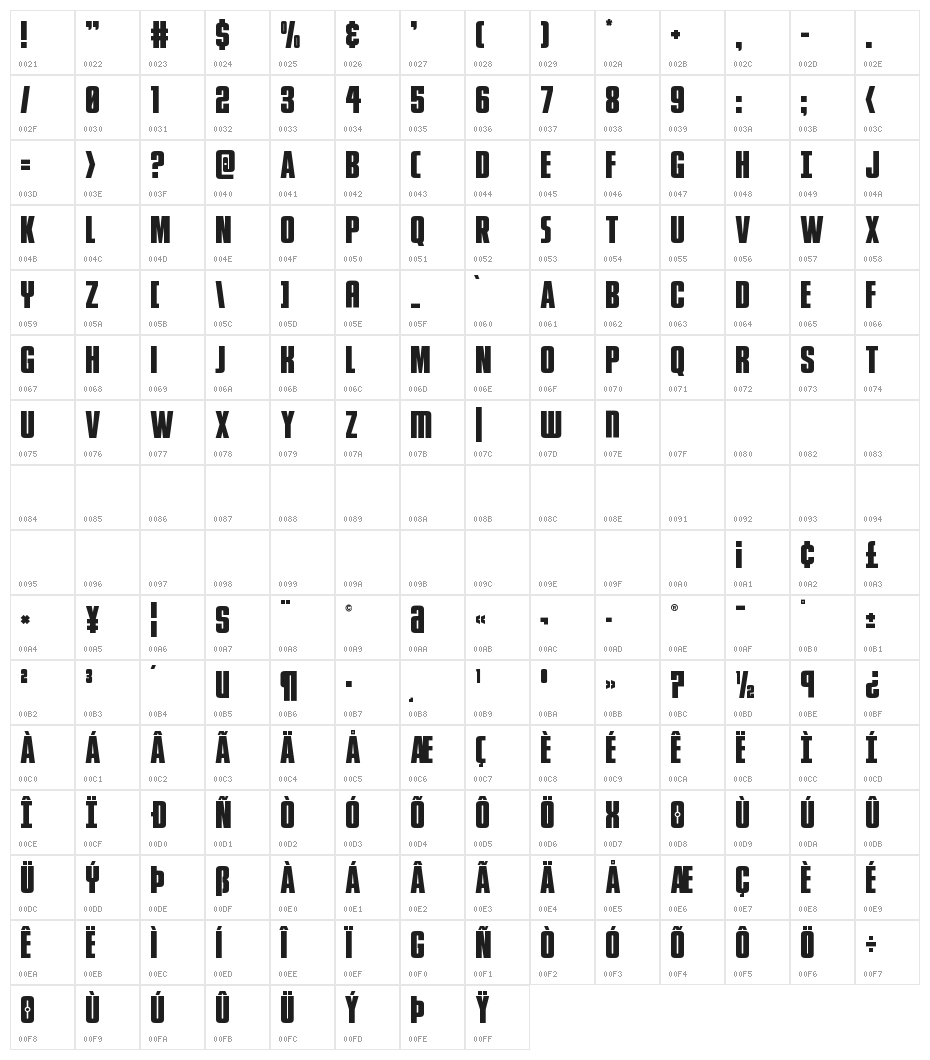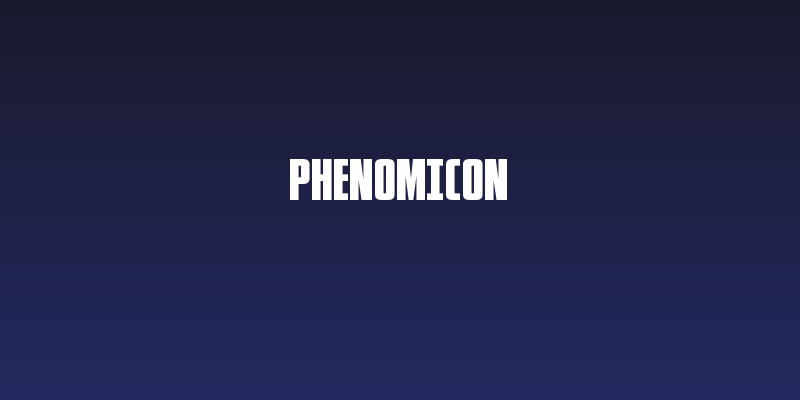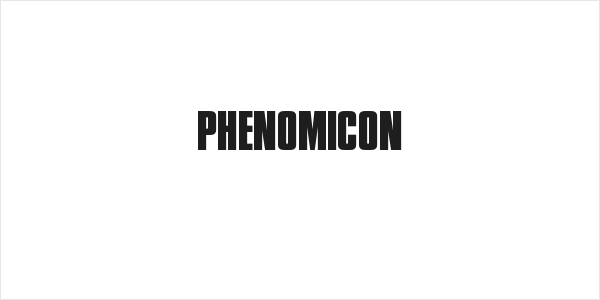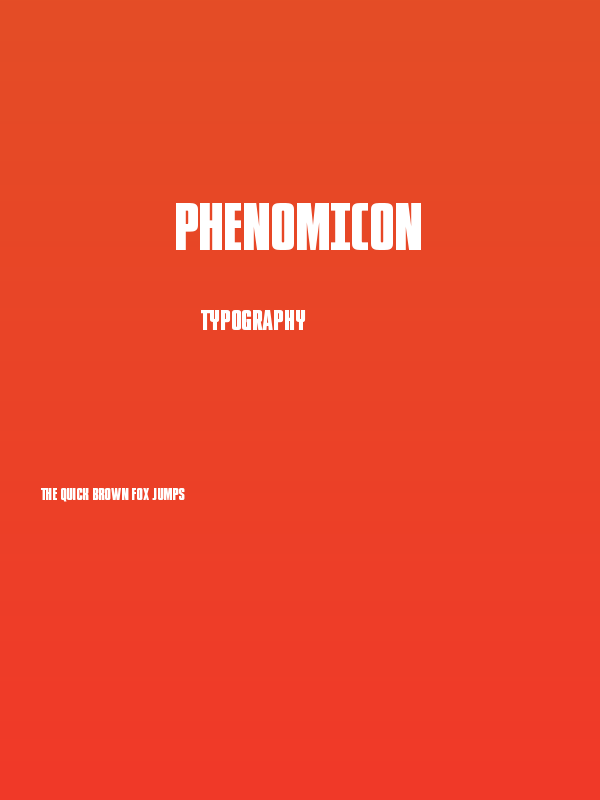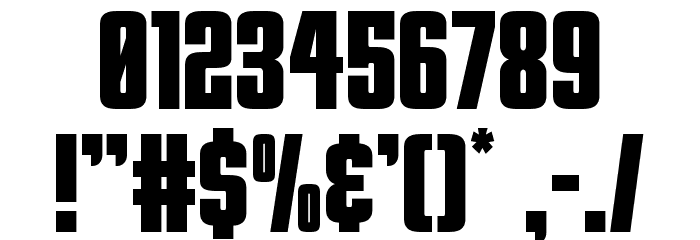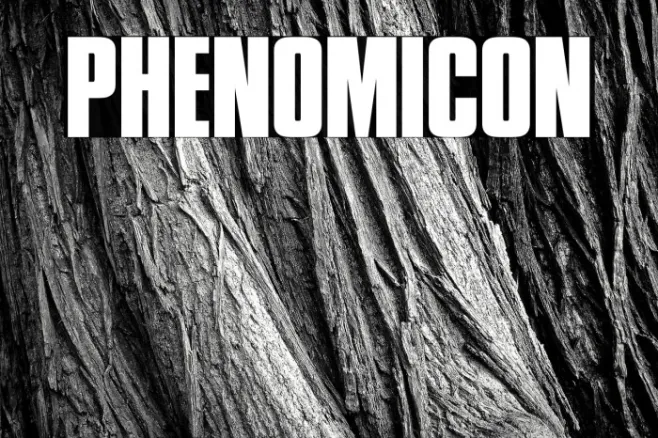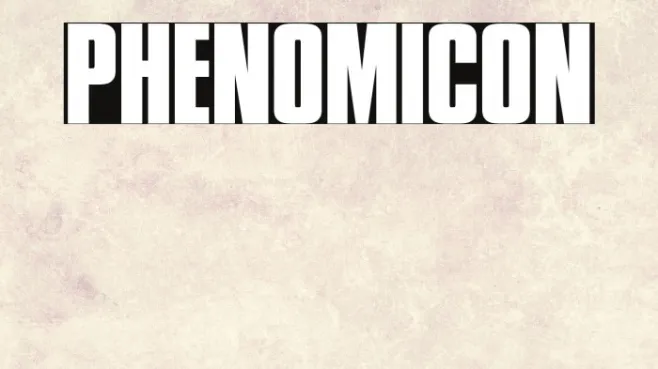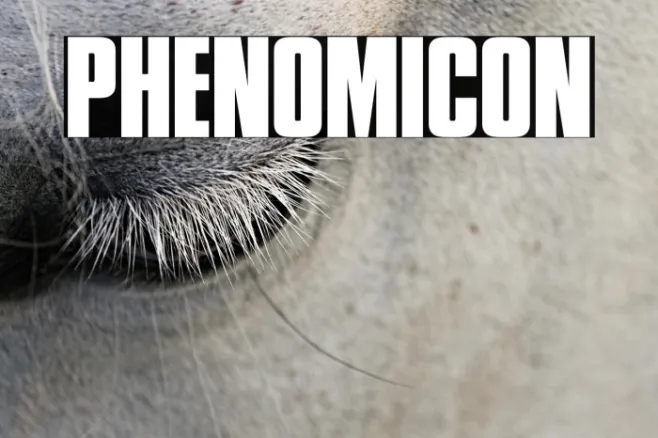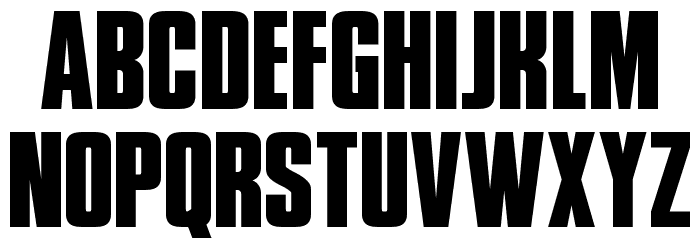
Phenomicon Font
Phenomicon Description
This bold and impactful font features strong, thick strokes with a commanding presence. The characters are uniformly wide, creating a sense of stability and strength. The uppercase letters are particularly striking, with a blocky, geometric style that ensures high visibility and readability. The numbers and special characters maintain this robust design, making them ideal for attention-grabbing headlines or signage. The font's overall aesthetic is modern and assertive, perfect for projects that require a bold statement.
PHENOMICON UPPERCASE
PHENOMICON LOWERCASE
PHENOMICON OTHER CHARS